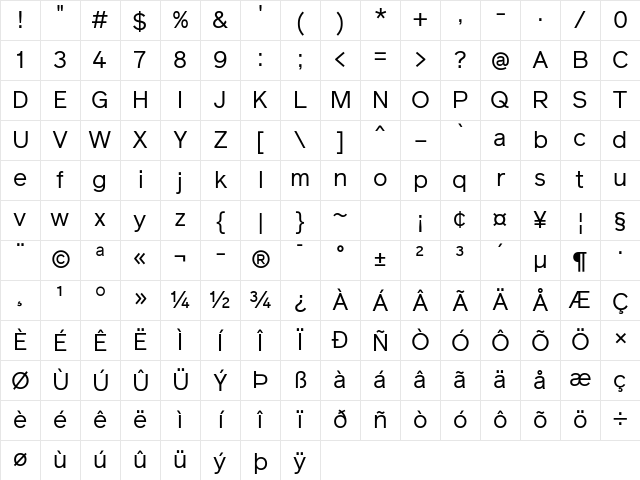
Reader Pro Regular
Foundry: Colophon Foundry
Designer: Colophon Foundry
Design Context for Reader Pro
Reader Pro is a composed and adaptable typeface that performs quietly and consistently across a wide range of design contexts.